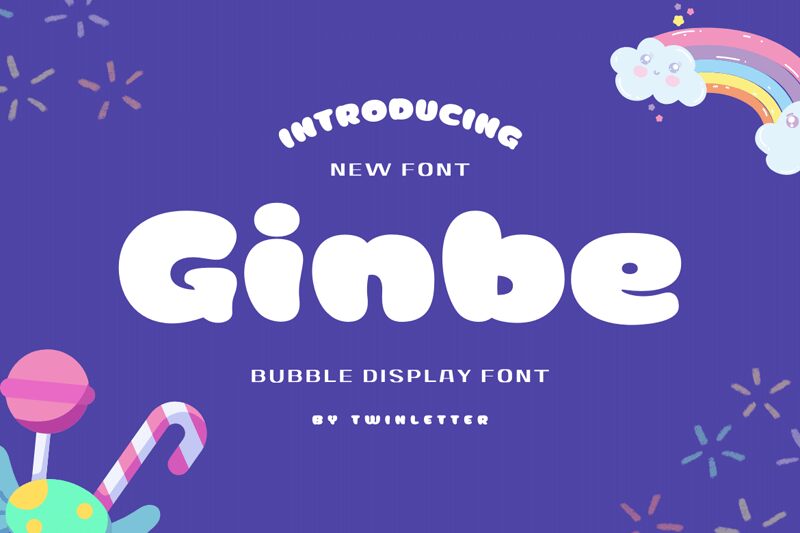
Ginbe, the lively creation of Twinletter, is an ultra-bold, expanded display font that brings a delightful cartoonish charm to any project it graces.
With its playful curves and exaggerated proportions, Ginbe is perfect for children's books, animated movies, and whimsical branding campaigns. This typeface is designed to make your content stand out from the crowd while maintaining readability. Whether you're designing eye-catching posters or crafting captivating logos, Ginbe injects a sense of fun and wonder into every project it suits.
Unleash your creativity with Ginbe - where imagination meets boldness!